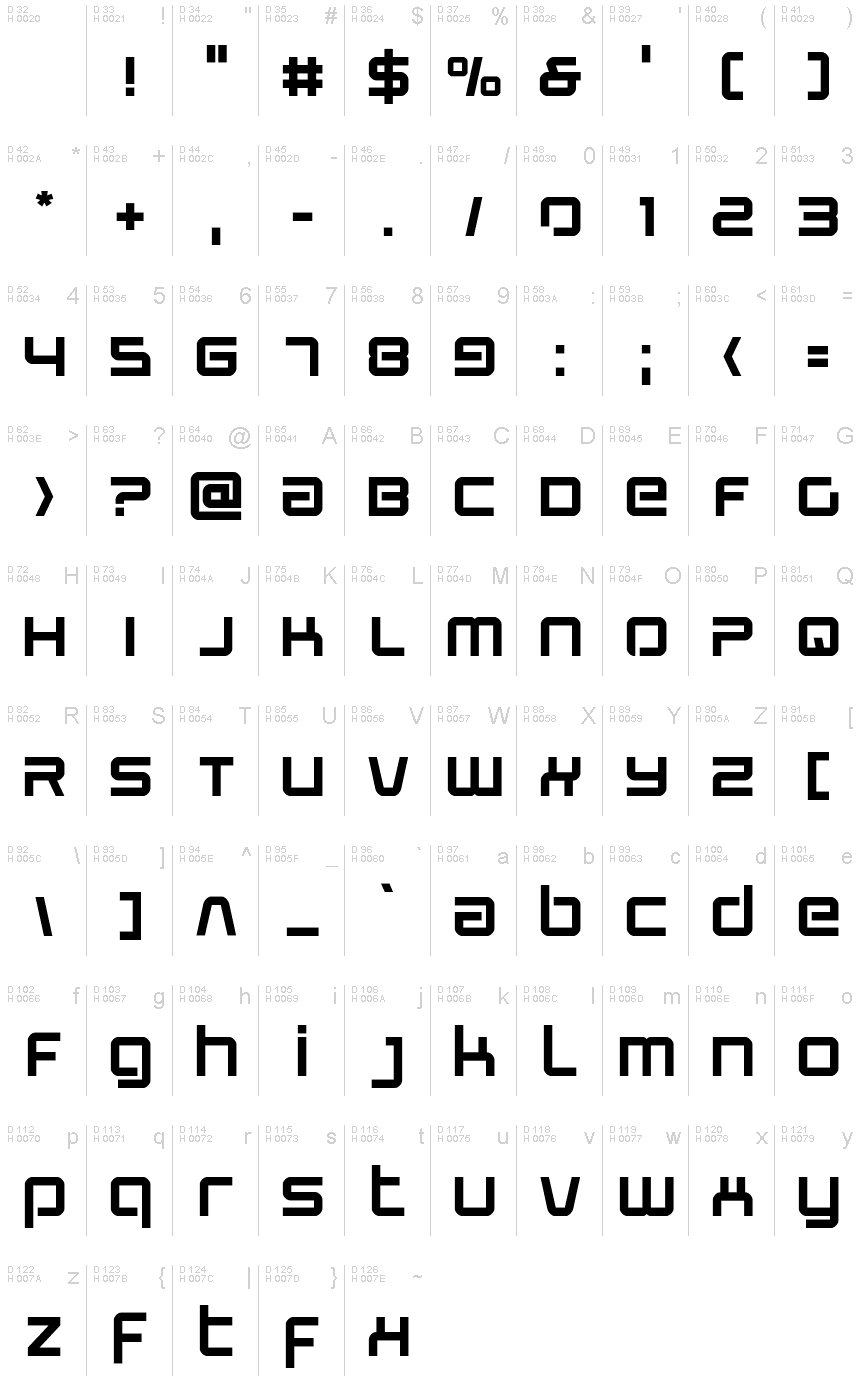
Star Eagle 2
Star Eagle 2 by Iconian Fonts is a captivating display font that adds a futuristic touch to any project.
With its expanded width, this font exudes confidence and boldness, making it ideal for eye-catching headlines, posters, and logos. Its sleek and modern design brings a sense of innovation to technology-related projects such as apps, websites, or video games. Star Eagle 2's unique style also lends itself well to science fiction-themed designs, creating an otherworldly atmosphere in book covers or movie titles.